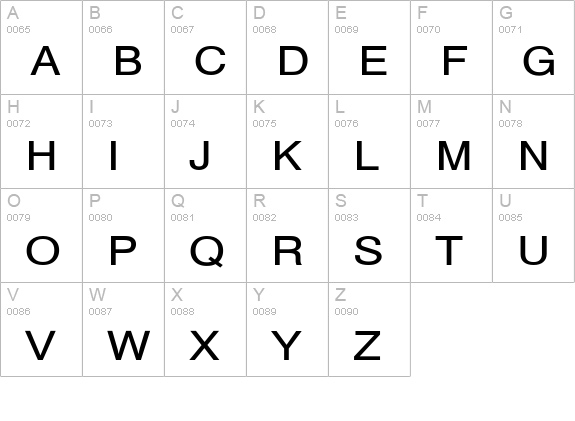
PartridgeExt-No Font Details
Introducing PartridgeExt-No, a stunningly versatile font that is bound to elevate your design projects to new heights. This exceptional typeface combines elegance, modernity, and a touch of uniqueness, making it the perfect choice for a wide range of creative endeavors. PartridgeExt-No offers a mesmerizing blend of clean lines, delicate curves, and stylish details, resulting in a visually captivating composition that is both pleasing to the eye and easy to read. Its carefully crafted letterforms exude a sense of sophistication and professionalism, making it an excellent choice for branding, advertising, editorial design, and more. One of the standout features of PartridgeExt-No is its amazing versatility. From bold headlines to subtle body text, this font effortlessly adapts to various design contexts, allowing you to create stunning compositions that leave a lasting impression. Its extensive character set includes a wide range of alternative glyphs, ligatures, and swashes, giving you endless possibilities to customize and add a personal touch to your designs. And the best part? PartridgeExt-No is available for free download at FontsMarket.com. Yes, you heard that right – this remarkable font can be yours without spending a dime. Whether you're a professional designer looking to expand your font library or a student working on a passion project, PartridgeExt-No offers an incredible opportunity to enhance your creativity without breaking the bank. So, why wait? Unlock the full potential of your designs with the captivating elegance of PartridgeExt-No. Download it now for free at FontsMarket.com and let your creativity soar to new heights.